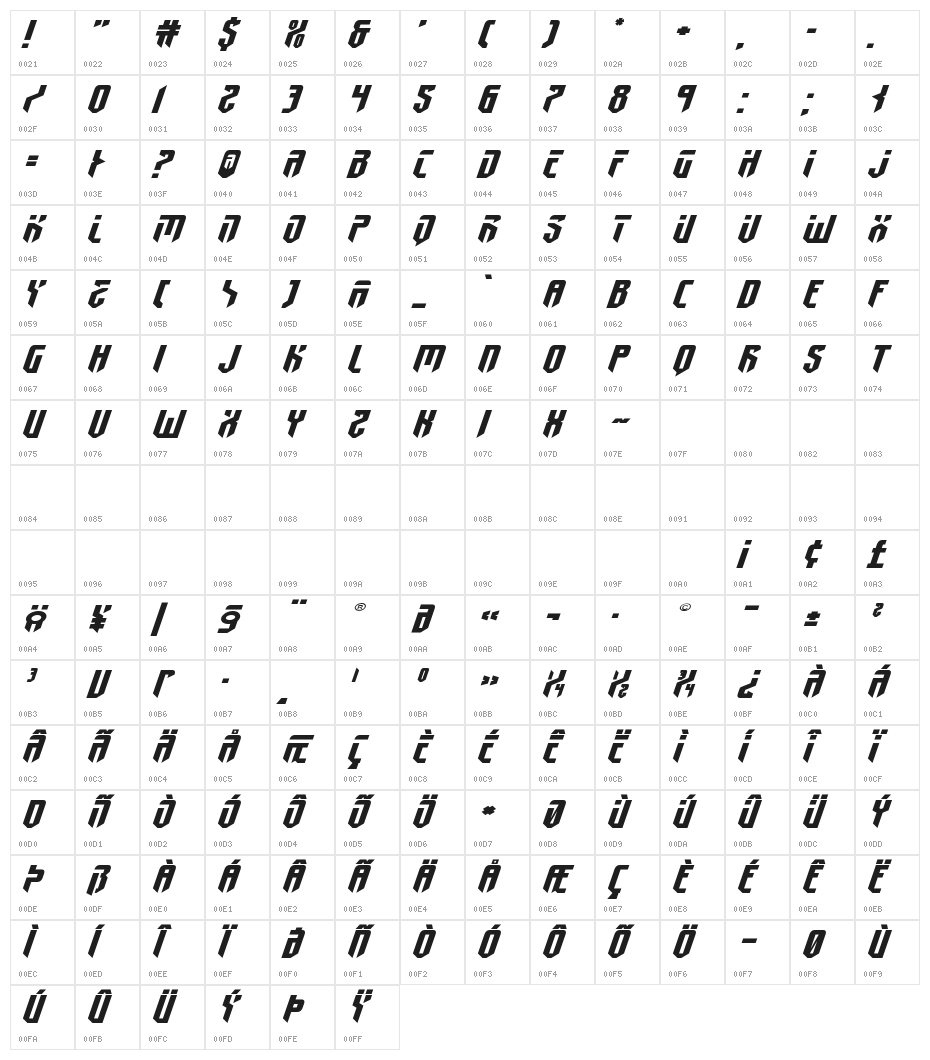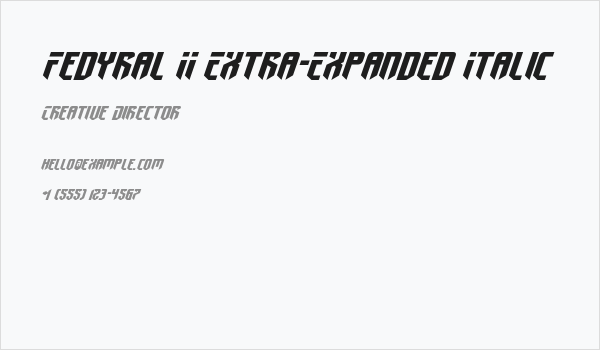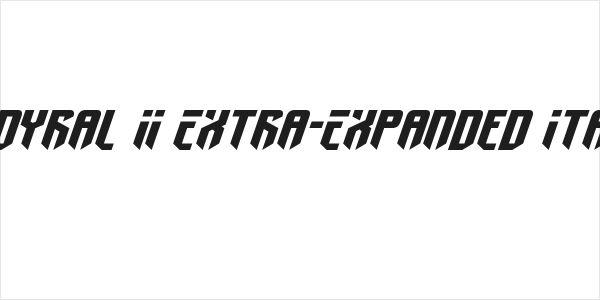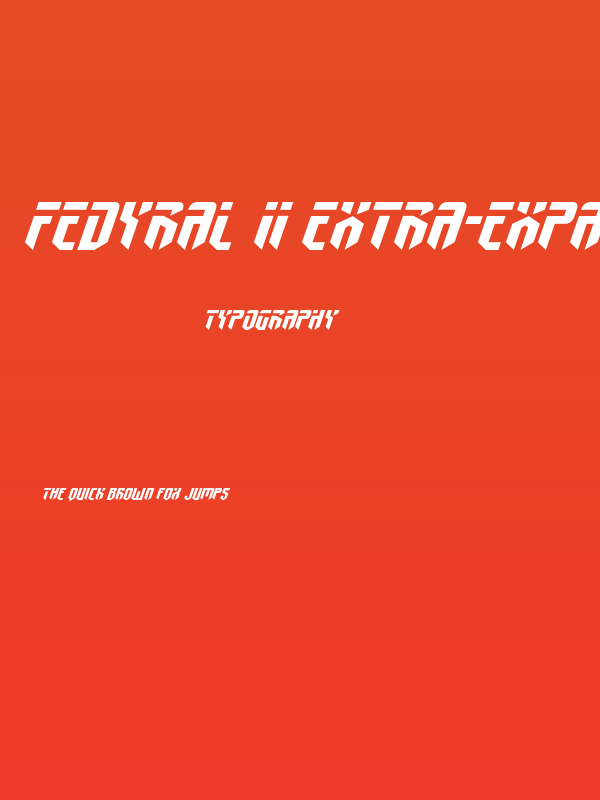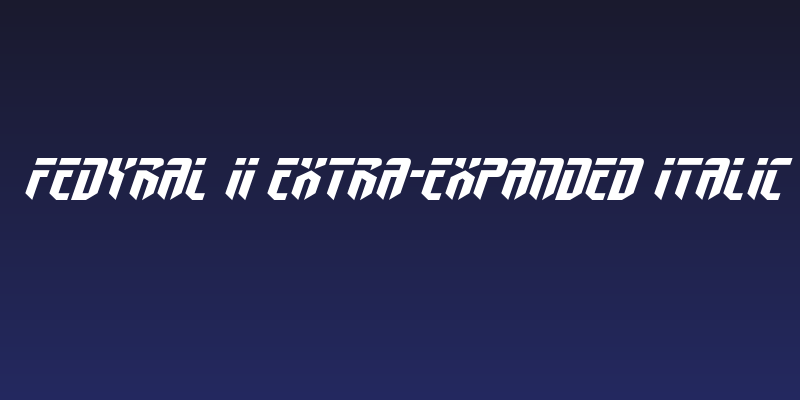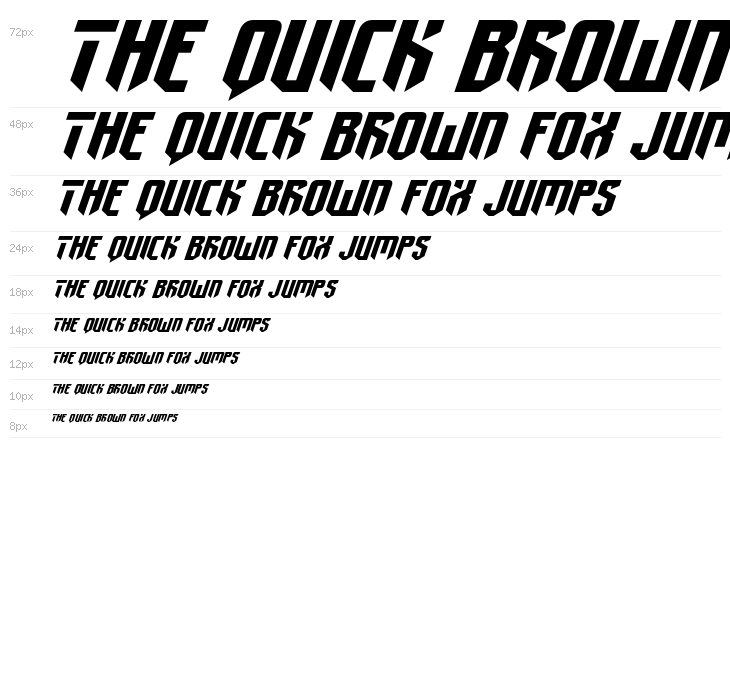
Fedyral II Extra-Expanded Italic Font
Fedyral II Extra-Expanded Italic Description
This font features a bold and dynamic design with a distinctly angular and geometric style. The characters are sharply defined with a futuristic appearance, emphasizing strong diagonal lines and a sense of movement. The italicized slant adds to its energetic and modern feel, making it stand out in any design. The expanded width of the characters provides a sense of openness and space, while maintaining a compact and cohesive look. The font's unique style is suitable for projects that require a bold statement and a contemporary edge.
Proposed ProjectsIdeal for sports branding, tech-related designs, video game titles, and dynamic posters.